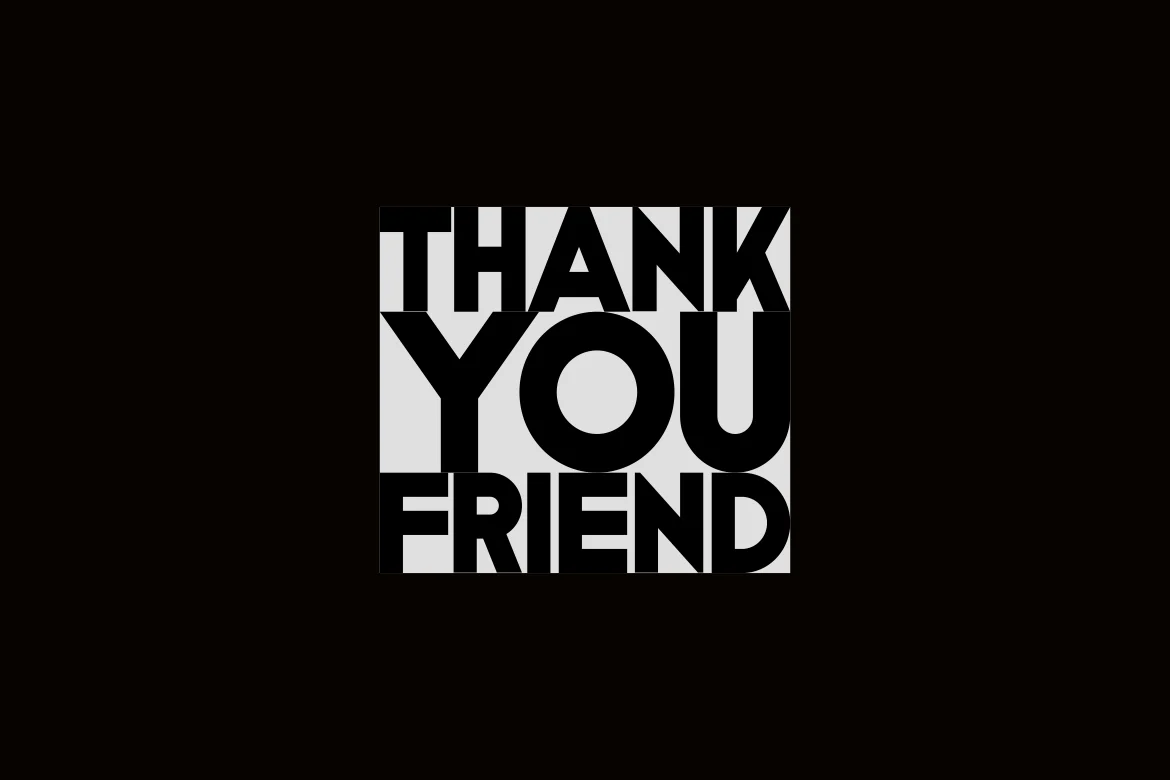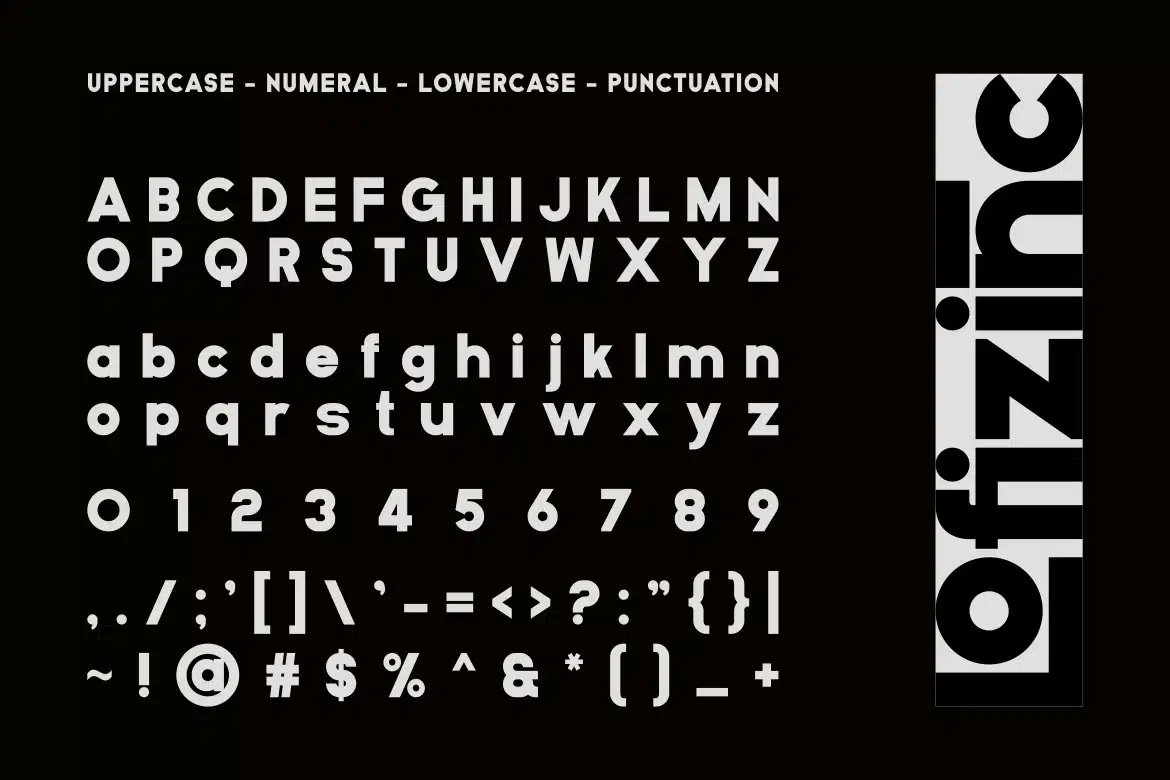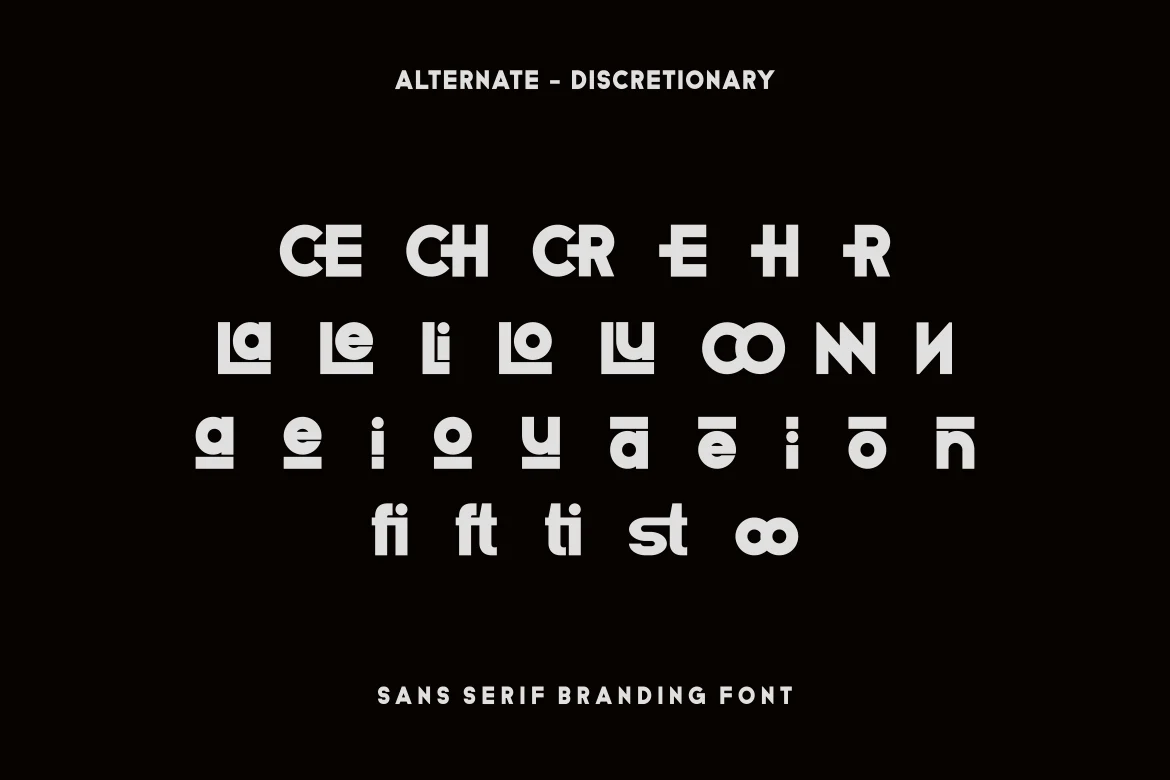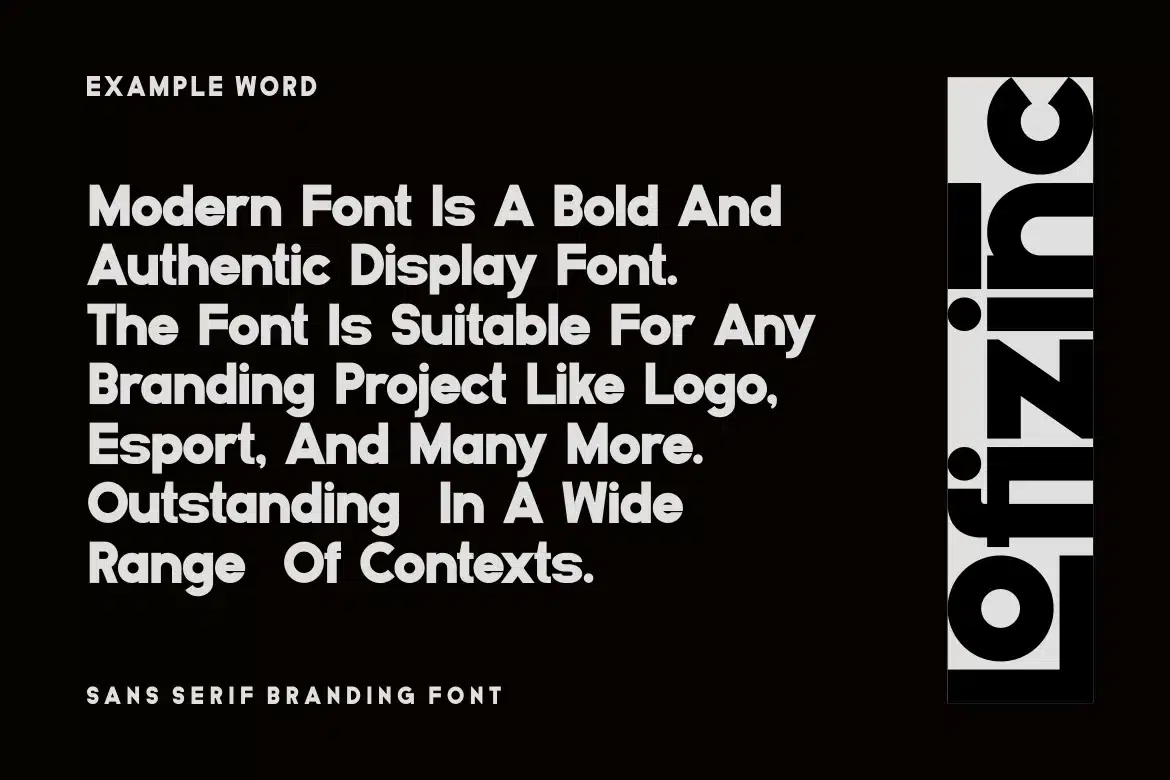
Introducing our new product Lofizinc Font - Modern Font
Lofizinc Font- Modern Font is a bold and authentic display font. The font is suitable for any branding project like logo, esport, and many more. outstanding in a wide range of contexts.